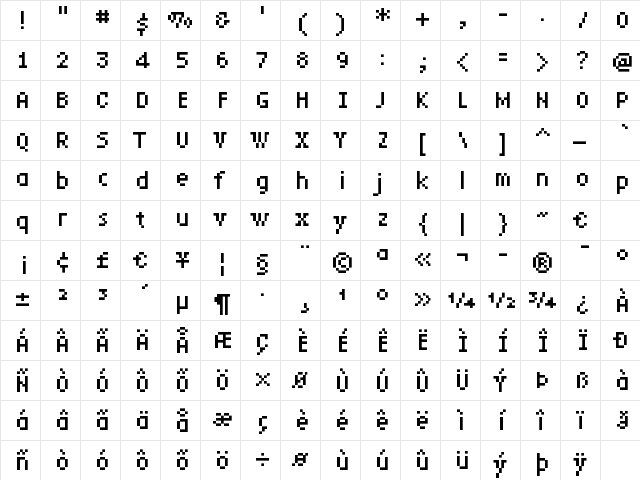
LoResNine Narrow Font Preview
LoResNine Narrow
| Designer | Zuzana Licko |
Design Context for LoResNine Typeface
LoResNine takes a measured approach to typography — its balanced proportions and neutral character make it a reliable workhorse for both digital and print work. Its narrow stance lets it pack a punch even in space-constrained designs.